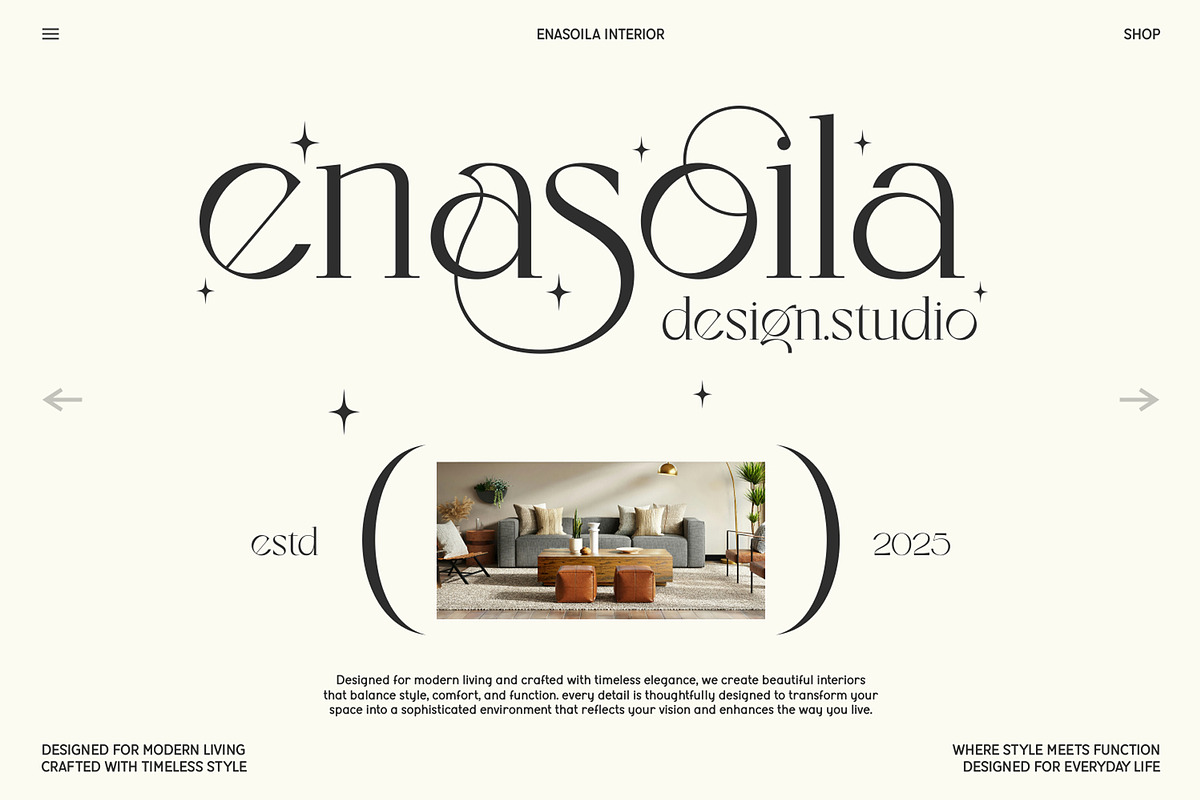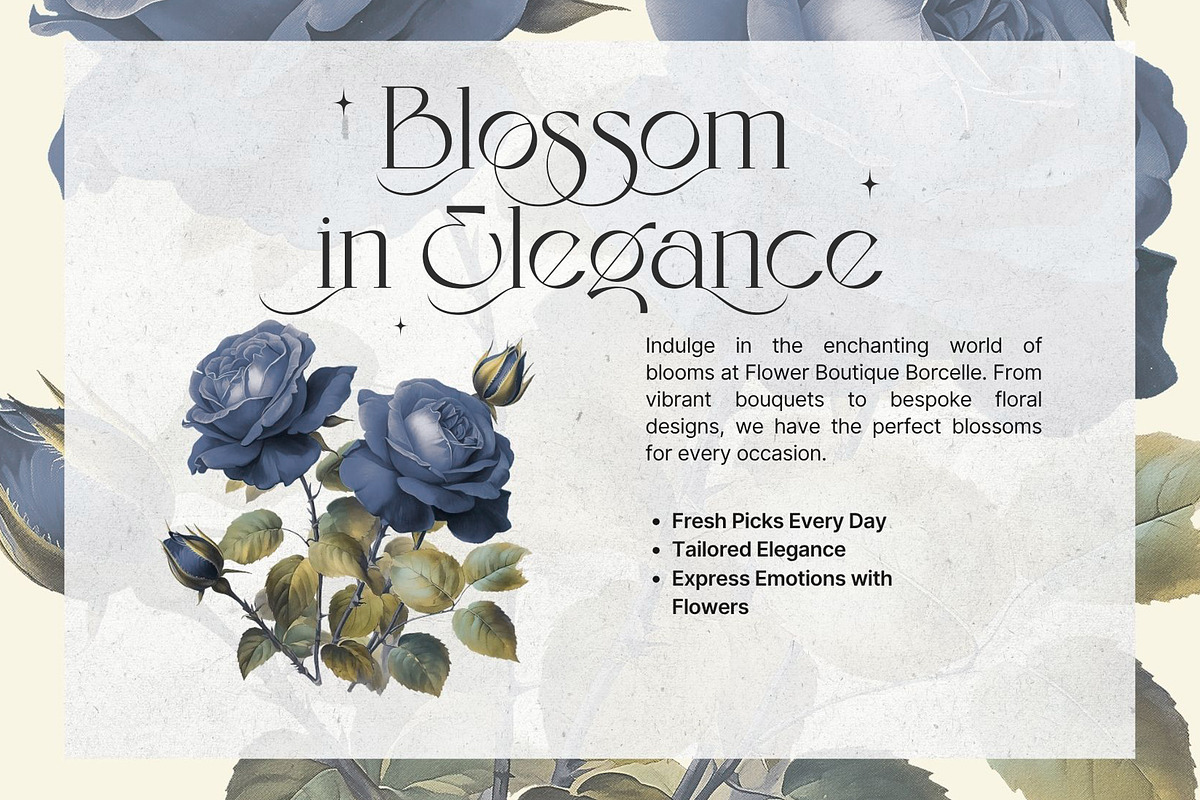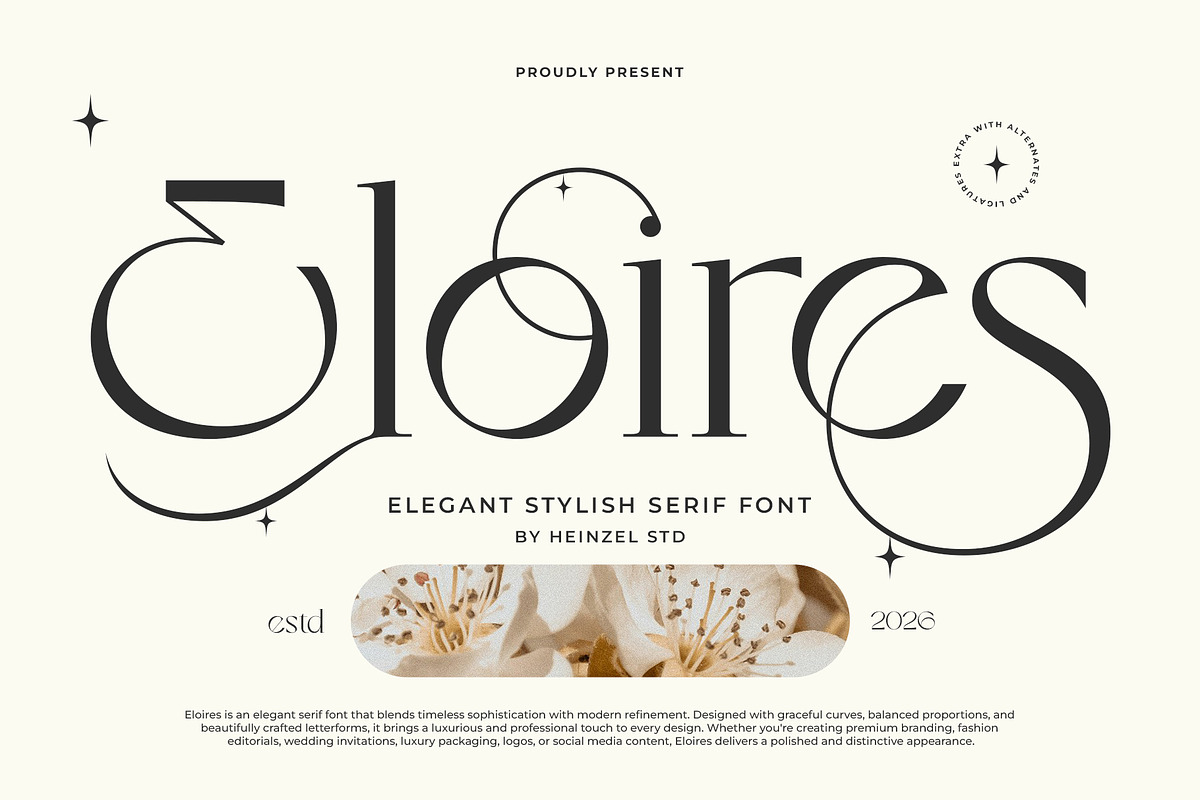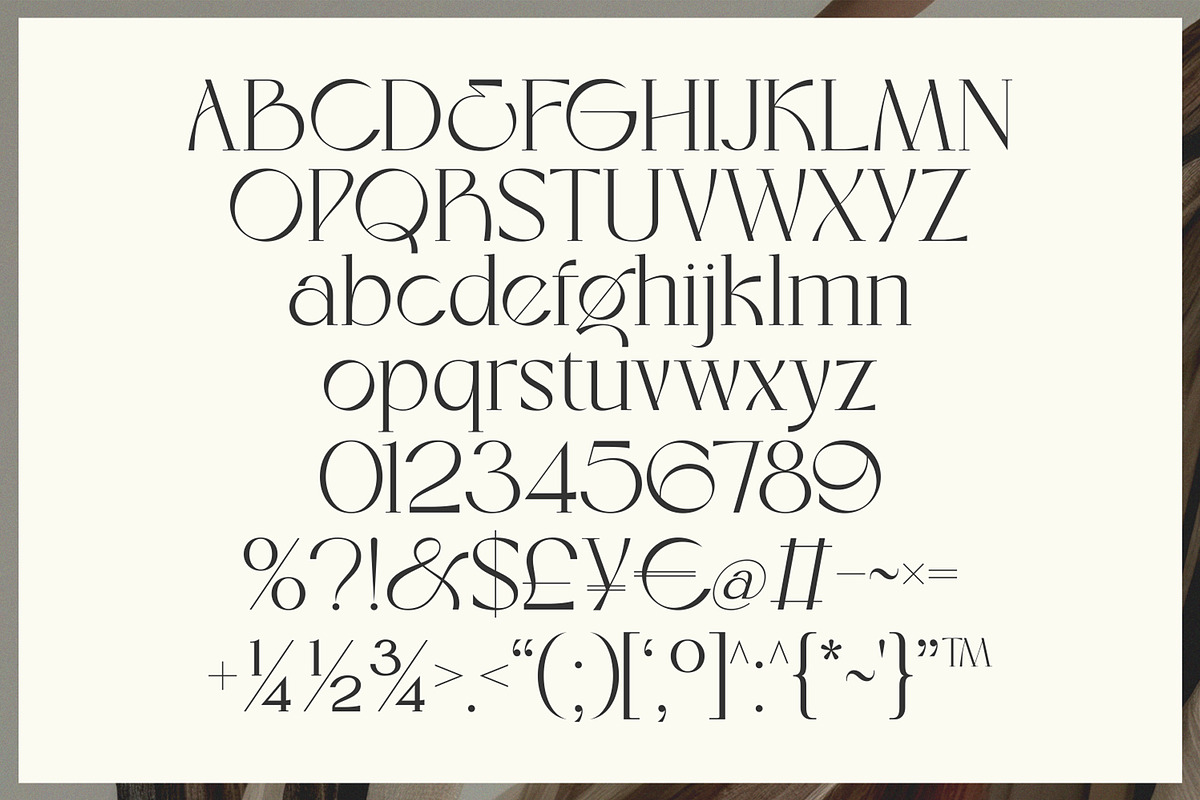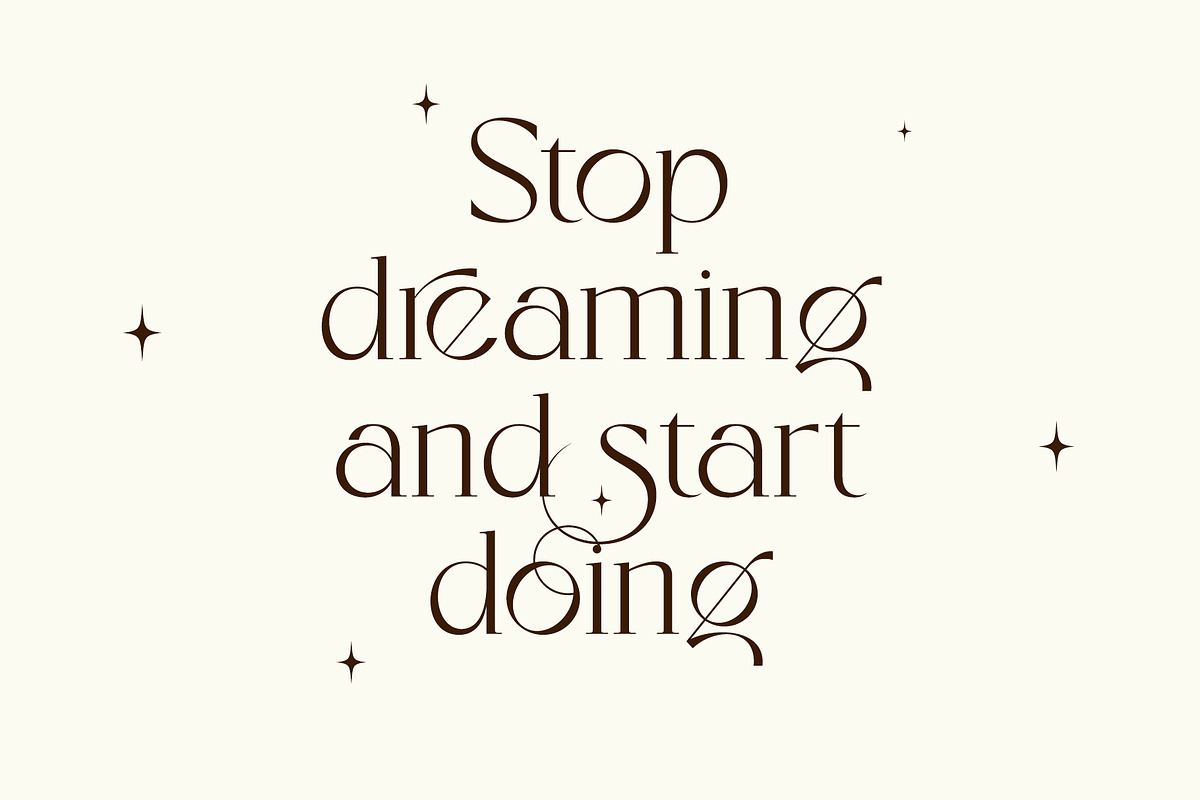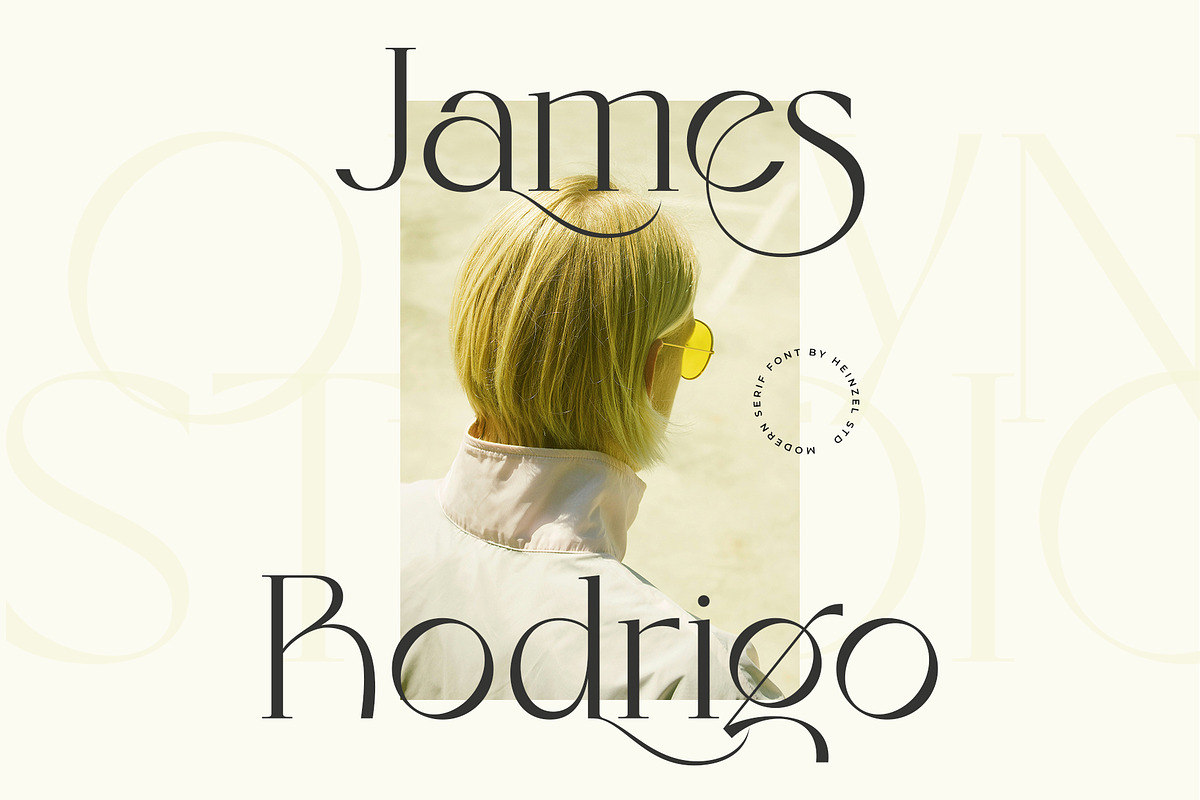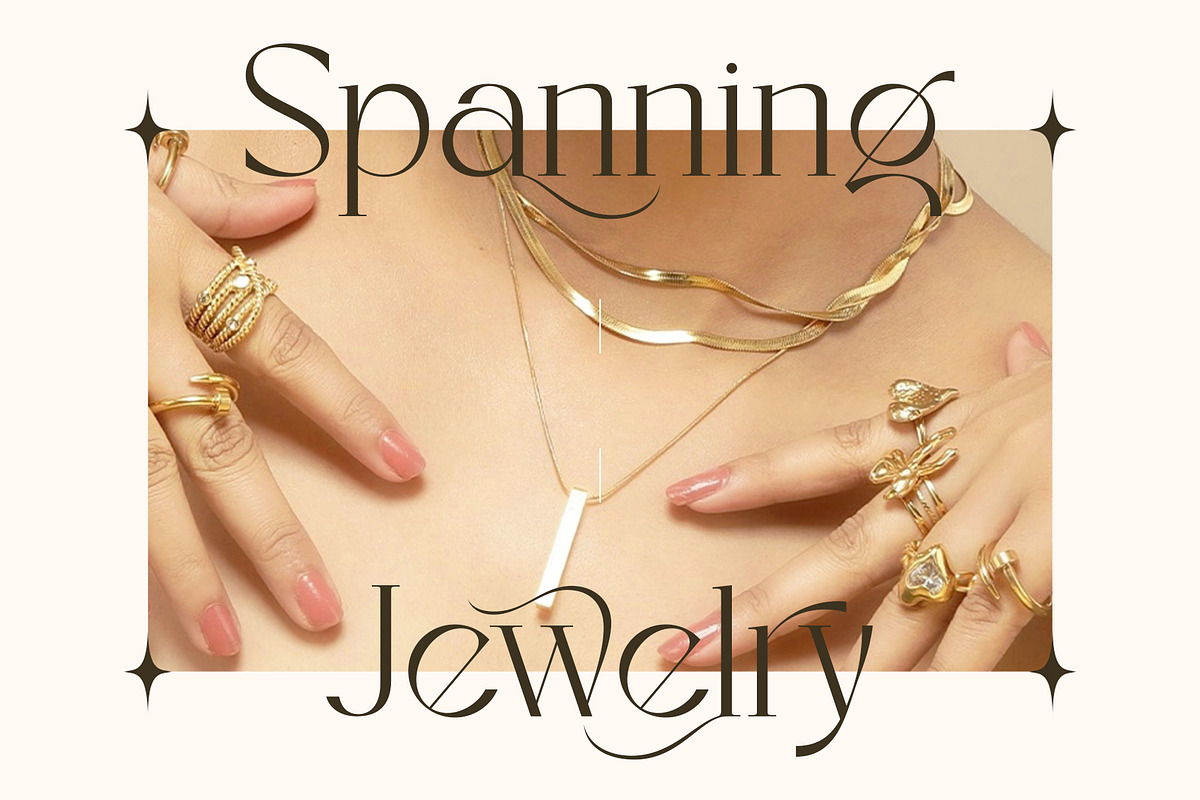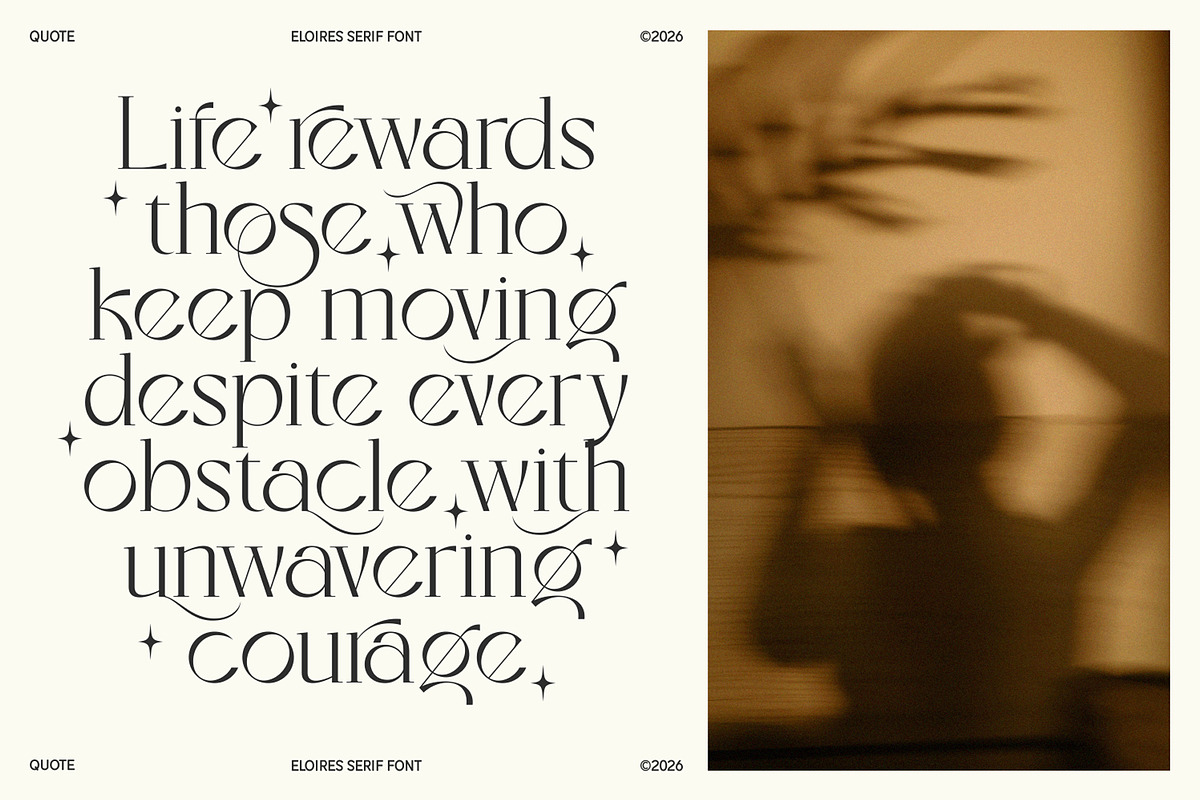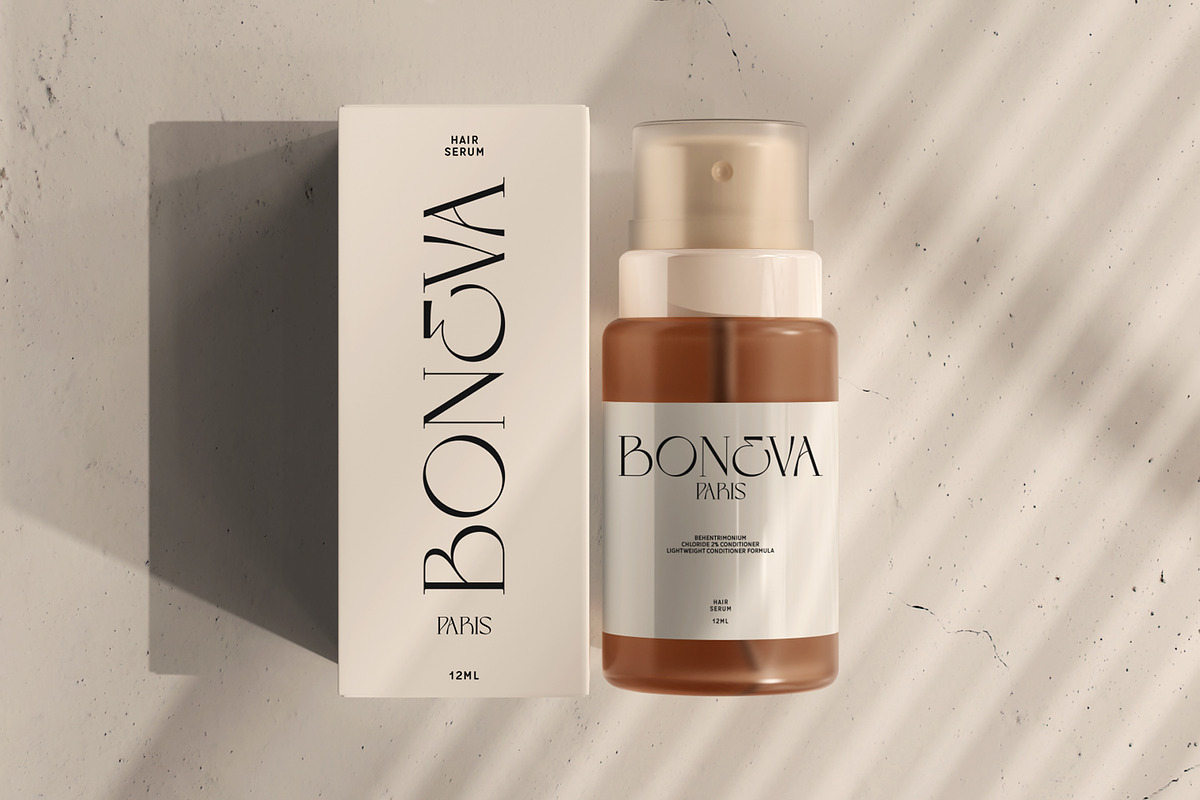
Eloires Elegant Stylish Serif Font
Eloires is an elegant stylish serif font that blends timeless sophistication with contemporary luxury. Designed with graceful curves, refined contrast, and distinctive decorative swashes, Eloires creates a memorable visual identity for premium design projects. The font features beautifully crafted letterforms with stylish ligatures and elegant alternates, allowing designers to create unique typography with effortless sophistication.
Perfect for luxury branding, fashion editorials, wedding invitations, cosmetic packaging, jewelry logos, boutique branding, magazines, social media graphics, and premium stationery, Eloires delivers an upscale aesthetic that instantly elevates your designs. Its balanced proportions and artistic details make it suitable for both large display headlines and refined logo creations.
Whether you're building a luxury brand identity or designing elegant marketing materials, Eloires offers the perfect combination of classic serif beauty and modern creative expression. Every character has been carefully designed to provide a polished, high-end appearance while maintaining excellent readability and versatility across both print and digital media.